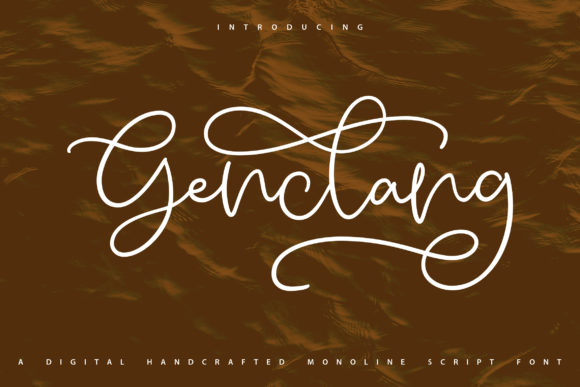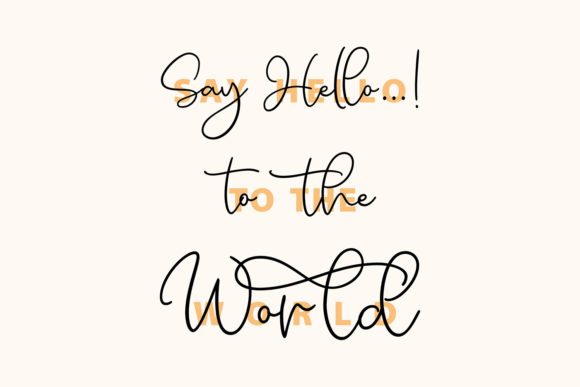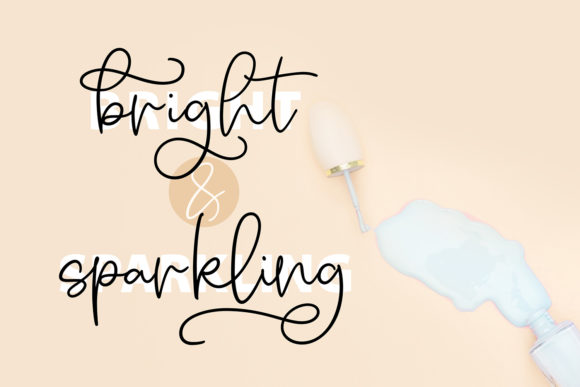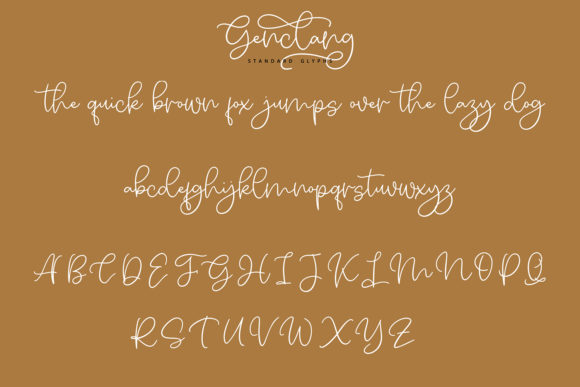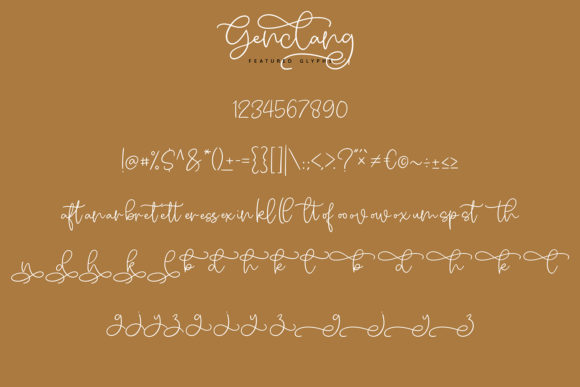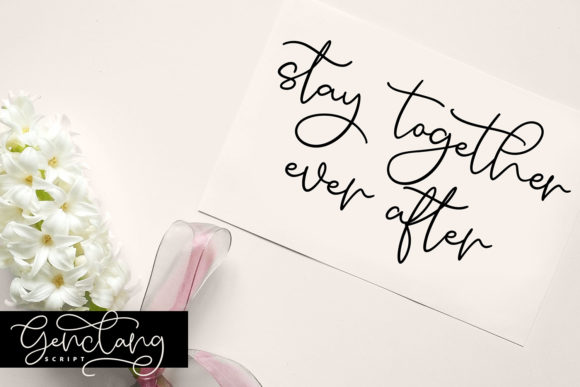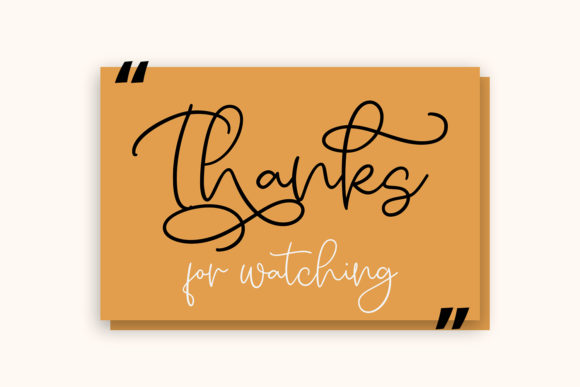
Genclang Font
Introducing Genclang, an exquisite handwritten font that is sure to become your new favorite. With its classy calligraphic influences combined with a contemporary and fresh feel, Genclang strikes the perfect balance between elegance and modernity. Get ready to be captivated by its beauty and take your projects to new heights!
Genclang showcases a level of craftsmanship that is evident in every carefully crafted letterform. The flowing and graceful strokes of this font create a sense of sophistication and refinement, making it ideal for projects that require a touch of elegance. Whether you’re designing wedding invitations, luxury branding, editorial layouts, or any other high-end design, Genclang will effortlessly elevate your work to the highest levels of style and sophistication.
What sets Genclang apart is its versatility and timeless appeal. It seamlessly blends classic calligraphy with contemporary design elements, giving it a unique and captivating aesthetic that transcends trends. This makes Genclang a font that can be used for a wide range of projects across different industries and design styles. From logo design and packaging to signage and social media graphics, Genclang will always make a lasting impression.
With its extensive set of glyphs and swashes, Genclang offers you endless possibilities for customization and creativity. The font is PUA encoded, which means you can easily access all the alternate characters, ligatures, and decorative swashes using any software that supports OpenType features. This allows you to add flourishes, decorative touches, and personalized details to your designs with ease, giving them a truly bespoke and tailored look.
Whether you’re creating a logo that exudes elegance and sophistication, designing invitations that make a lasting impression, or crafting social media graphics that stand out from the crowd, Genclang provides you with the tools to bring your vision to life. Its exquisite letterforms and impeccable attention to detail will ensure that your projects shine with a timeless and refined appeal.
So, fall in love with Genclang and let it become your go-to font for all your design needs. Its masterful design and undeniable charm will bring a touch of elegance and class to every project you undertake. Embrace the versatility and beauty of Genclang and watch as your designs reach new levels of sophistication and admiration.